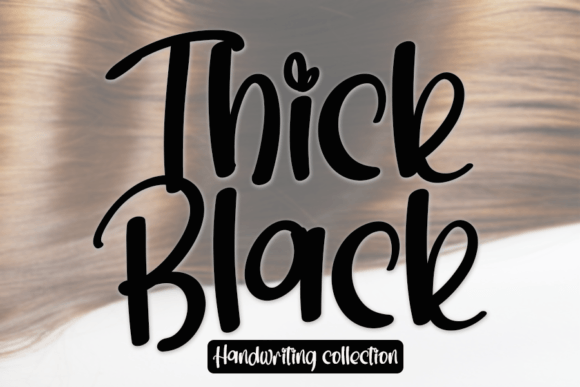
Welcome to the world of Thick Black Font, a mesmerizing handwritten font that will captivate your audience and add an irresistible charm to your creative projects. With its graceful curves and elegant strokes, Thick Black Font embodies the essence of artistry and sophistication.
Immerse yourself in the beauty of Thick Black Font and experience the transformative power of typography. This font is not just a collection of characters; it's a work of art that breathes life into your designs. Let your imagination run wild as you explore the endless possibilities that await you with Thick Black Font.
Unleash the creative genius within you and create breathtaking product packaging that commands attention and leaves a lasting impression. Elevate your branding projects to new heights with a logo that oozes elegance and sets you apart from the competition. Design magazine covers that captivate readers and transport them into a world of visual delight.
Transform your social media posts into captivating works of art that engage your audience and leave them craving for more. Perfect for weddings, invitations, and special occasions, Thick Black Font adds a touch of timeless romance and sophistication.
With Thick Black Font, the possibilities are boundless. Its versatility knows no limits, making it the ideal choice for a wide range of design projects. Unleash your inner artist and let your creativity shine through.
Step into the realm of Thick Black Font today and experience the joy of creating designs that captivate, inspire, and leave an indelible mark on the world. Embrace the beauty of handwritten typography and let your work speak for itself.